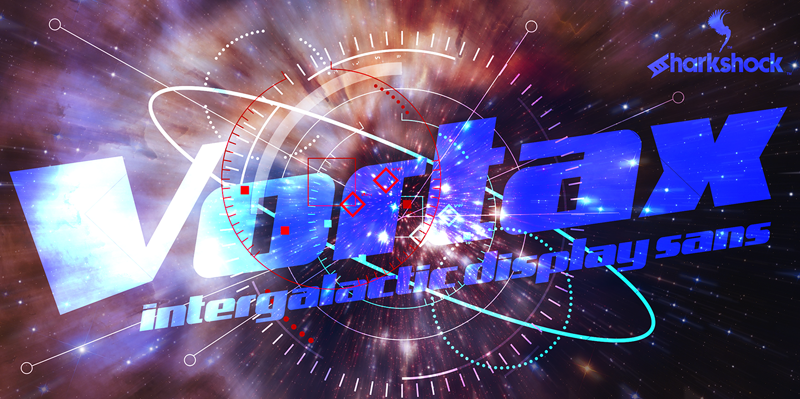
Font name: | Vortax |
OTF/TTF: Vortax (Regular and Italic) Sharkshock 2023. All rights reserved Designed by Dennis Ludlow 04/20/2023 dennis@sharkshock.net Vortax is a space-age themed display sans featuring broad strokes and tight spacing. This close relative of Galaxus features imposing Capitals with some sharp slants in the Italic version. It�s designed to cover horizontal blocks effortlessly. Most characters have curves on the exterior with right angles on the interior. This dynamic contrast makes it a great choice for a video game/app, toy packaging, or sports logo. Vortax is equipped with European accents for international support. Please check glyph maps for all supported characters. The demo contains basic characters only. The full version can be purchased for $35 via PayPal or by acquiring a commercial license. Do note that this $35 is for personal use only. Email us or visit www.sharkshock.net/license for more information on licensing. Unauthorized usage of our intellectual property is strictly prohibited and may result in legal remedies at our disposal. Tags: bold, broad, space, sports, futuristic, logo, sans, broad, wide, sharp, edgy, European, brand, Italic, slanted, oversized, strong, kinetic, robotic, computer |